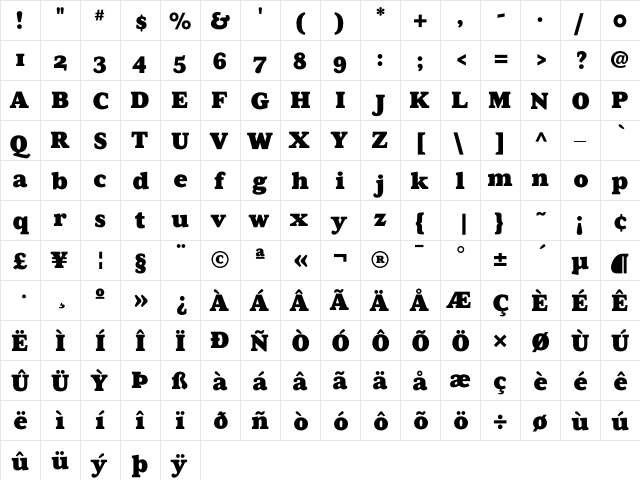
AureaUltra Roman
Design Context for AureaUltra Typeface
AureaUltra offers clean, dependable letterforms without strong stylistic allegiance, making it a practical choice for designers who need flexibility.
Pro Tip: Pair AureaUltra with a font of contrasting weight or personality to build a more expressive typographic hierarchy.